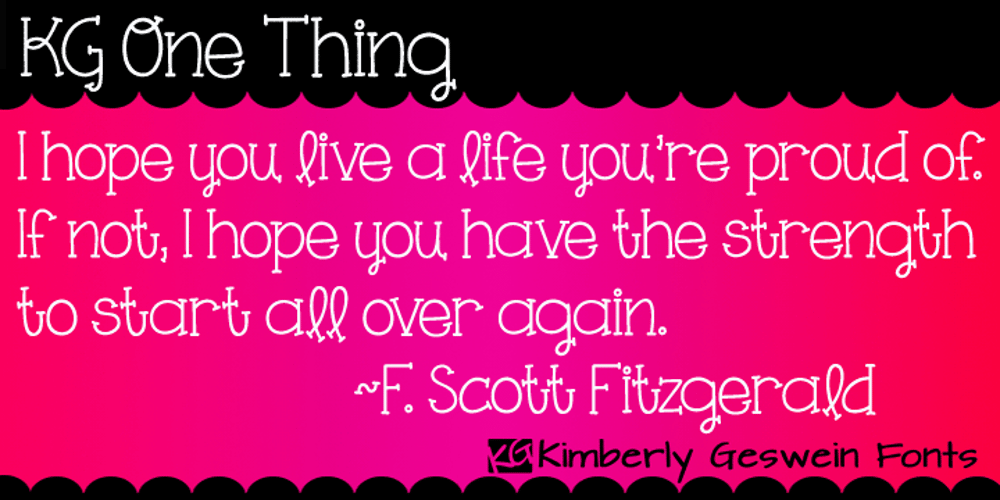
KG One Thing
KG One Thing font
KG One Thing Font Family was designed by Kimberly Geswein and published by Kimberly Geswein. KG One Thing contains 1 styles and family package options. This font is super bubbly and round. It is neat enough to be legible but still has personality.